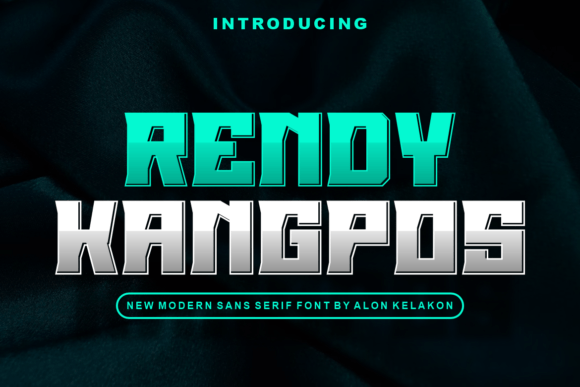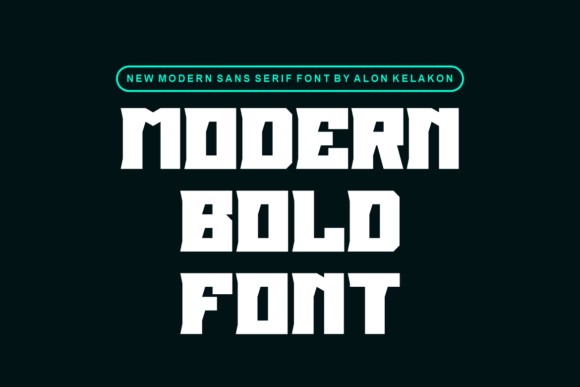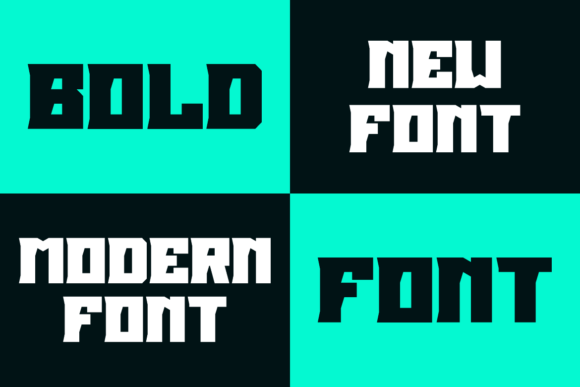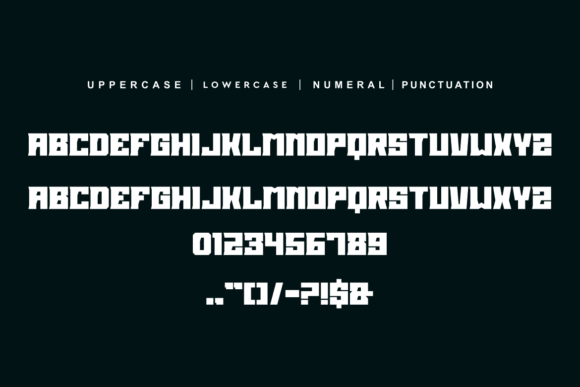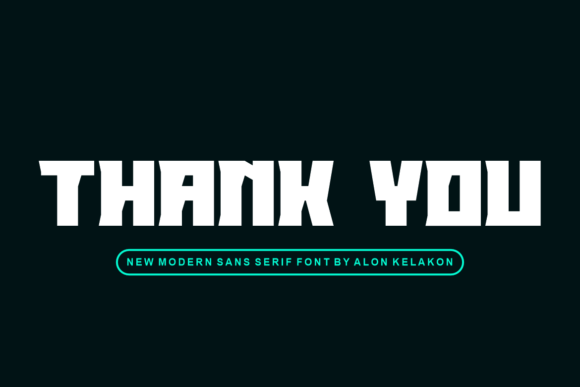
Rendy Kangpos
Rendy Kangpos: A Unique Slab Serif Font
Rendy Kangpos is a unique slab serif font designed for various creative applications. This versatile typeface brings distinctive character to projects ranging from labeling and clothing to movie titles and album covers.
Key Features of Rendy Kangpos
• Unique Design: Offers distinctive slab serif letterforms[2].
• Versatile Style: Adapts well to numerous applications.
• Strong Presence: Creates commanding visual impact[2].
• Creative Appeal: Perfect for entertainment and branding.
Best Uses for Rendy Kangpos
Thanks to its versatile characteristics, Rendy Kangpos works especially well for:
When using Rendy Kangpos in your designs, keep these tips in mind:
• Try it for headlines or display text to showcase its unique style[3].
• Use its distinctive character for creative projects.
• Take advantage of its versatility across applications.
• Let its strong presence enhance entertainment designs.
To sum up, Rendy Kangpos is an excellent choice for designers seeking a unique slab serif font. Its versatility makes it perfect for various creative projects. Whether you’re creating movie titles, designing clothing, or developing album covers, Rendy Kangpos offers the perfect blend of distinctiveness and adaptability.
Furthermore, Rendy Kangpos’s distinctive design allows it to shine in contexts where both uniqueness and impact are key. From product labeling to entertainment designs, this font can elevate your projects with its commanding style. Also, its unique yet readable appearance works particularly well in designs that aim to make a strong impact[2].
In conclusion, Rendy Kangpos truly captures the essence of unique design in slab serif typography. Its ability to work across different applications shows how well it can serve various creative needs. Therefore, for those wanting to add a touch of distinctive character to their work, Rendy Kangpos can enhance any design with its unique style. Ultimately, it’s perfect for designers aiming to make a strong, memorable impact across creative projects.